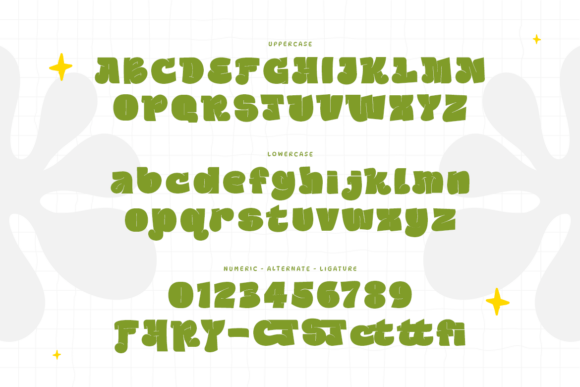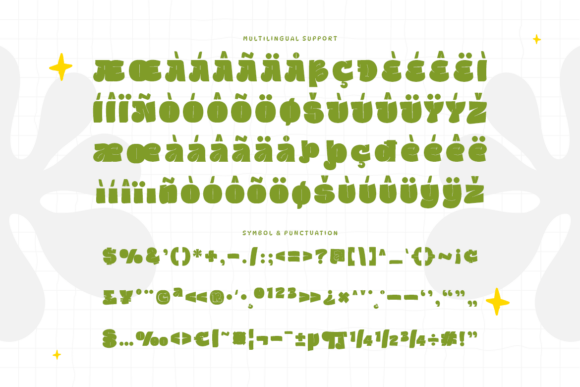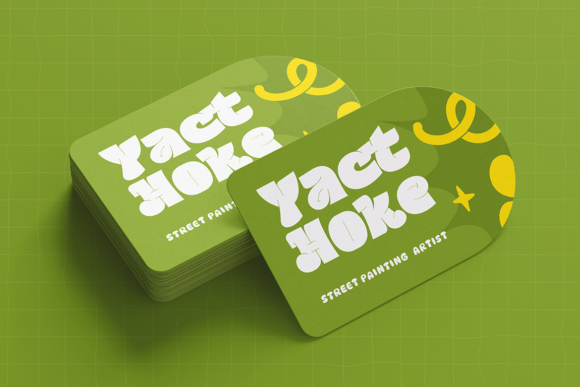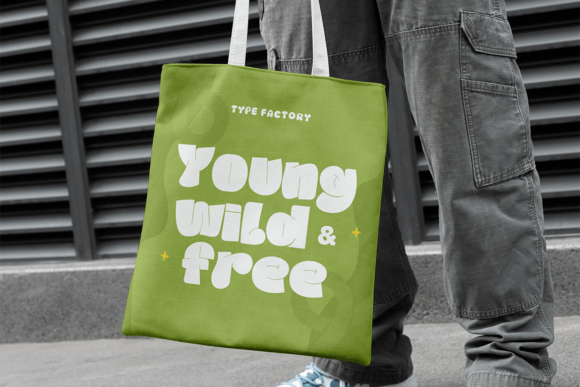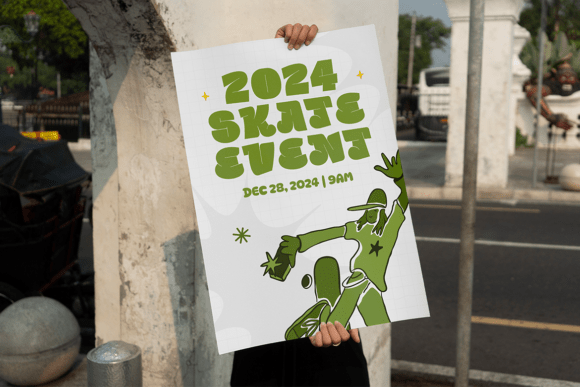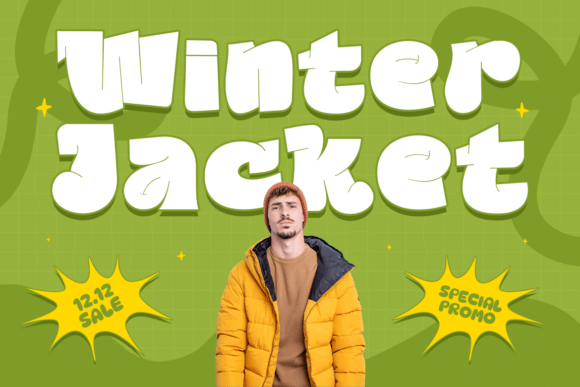
Introduction to Funky Lacy Font
Have you ever been scrolling through social media and stumbled upon a graphic that immediately grabs your attention? The bold, playful typography is the first thing that catches your eye, and you can’t help but pause and admire the design. For designers, that ‘wow’ moment is what makes a project truly special. And that’s exactly what the Funky Lacy Font is all about – creating an energetic and eye-catching visual style that leaves a lasting impression.
This bold blob-style display font is designed to be a design resource like no other. With its playful curves and expressive letterforms, it’s perfect for adding a touch of whimsy to any creative project. Whether you’re working on a poster, streetwear graphics, or merchandise design, the Funky Lacy Font is sure to bring a high quality and unique touch to your work.
Key Features of Funky Lacy Font
- Font size: 1,000 glyphs, covering a wide range of languages
- Unique, hand-drawn design with a fun and playful feel
- Perfect for use in digital and print media, including logos, branding, and graphics
Honest Review: Funky Lacy Font
I recently stumbled upon the Funky Lacy Font and was excited to give it a try for my next creative project. As a designer, I appreciate a good resource that can elevate my designs and save me time.
- ✨ High quality design that looks great on both light and dark backgrounds.
- ✨ Versatile and can be used for a variety of creative projects, from web design to print materials.
- ⚠️ Limited font combinations and styles, which may limit its use in more complex designs.
- ⚠️ May not be suitable for projects requiring a more formal or professional tone.
Overall, I’m impressed with the Funky Lacy Font’s design and usability. While it may not be perfect for every project, it’s a solid addition to any designer’s toolkit. Its high quality and ease of use make it a great choice for creative projects, and the free download option is a huge bonus.
Common Use Cases for Funky Lacy Font
The Funky Lacy Font is perfect for creative projects that require a unique and eye-catching design. Some common use cases include:
- Party decorations and signage
- Graphic design and branding materials
Tips for Getting the Most Out of Funky Lacy Font
To get the most out of the Funky Lacy Font, consider the following tips:
- Use a transparent background to create a seamless design
- Combine the font with other high-quality design elements for a cohesive look
- Experiment with different font sizes and colors to create a unique design
Alternatives to Funky Lacy Font
1. Funky Lacy Font Alternative: Great Vibes Font
Great Vibes Font is a high-quality, cursive script font perfect for creative projects requiring a touch of elegance. Its transparent background makes it ideal for use on various backgrounds, from light to dark. Use it for wedding invitations, quotes, or any design that needs a sophisticated feel.
Comparison to Funky Lacy Font: Great Vibes Font has a more refined and polished look, whereas Funky Lacy Font is bolder and more playful.
2. Funky Lacy Font Alternative: Alex Brush Font
Alex Brush Font is a hand-painted script font ideal for design projects requiring a touch of whimsy. Its high-quality design makes it suitable for use on various backgrounds, and its free download feature makes it an excellent resource for designers.